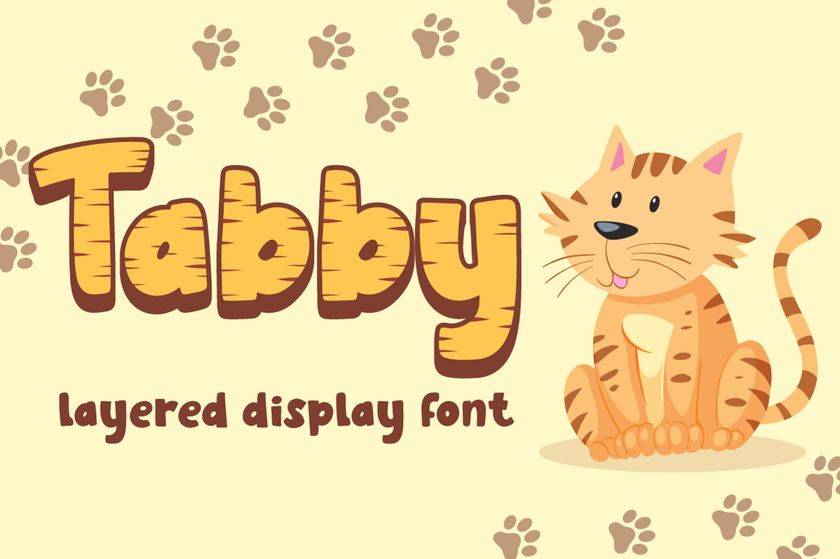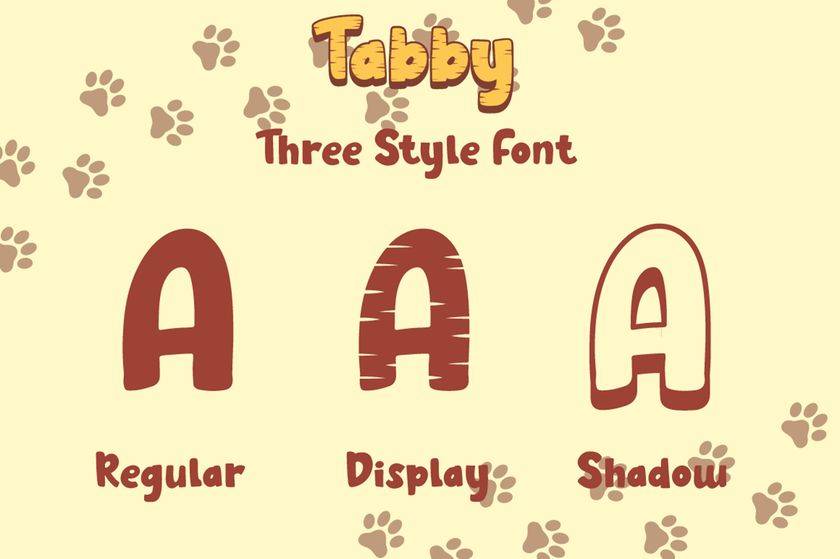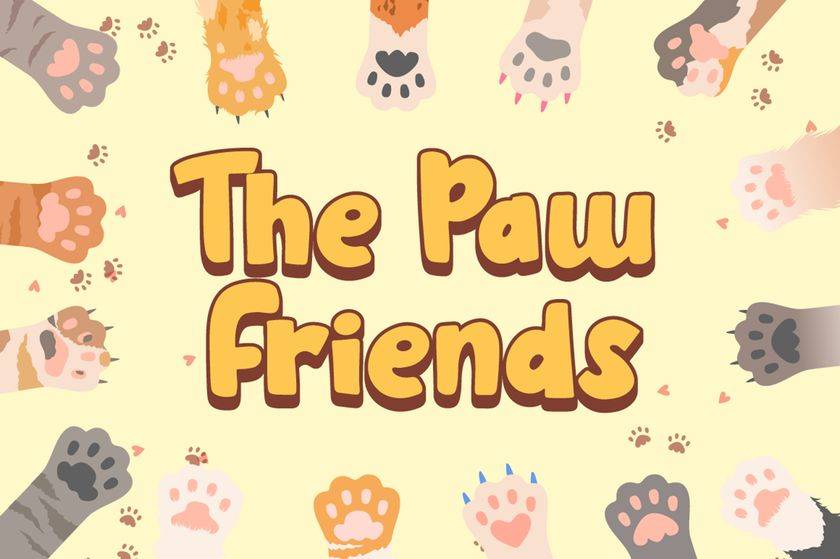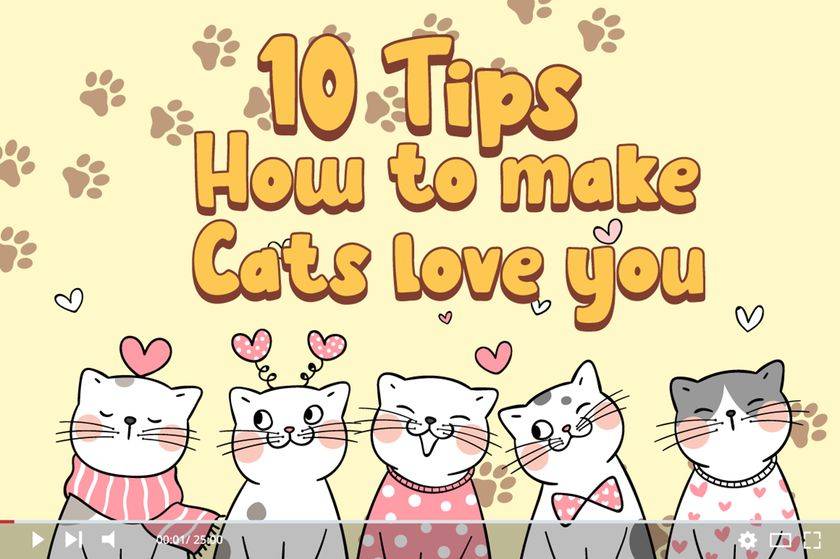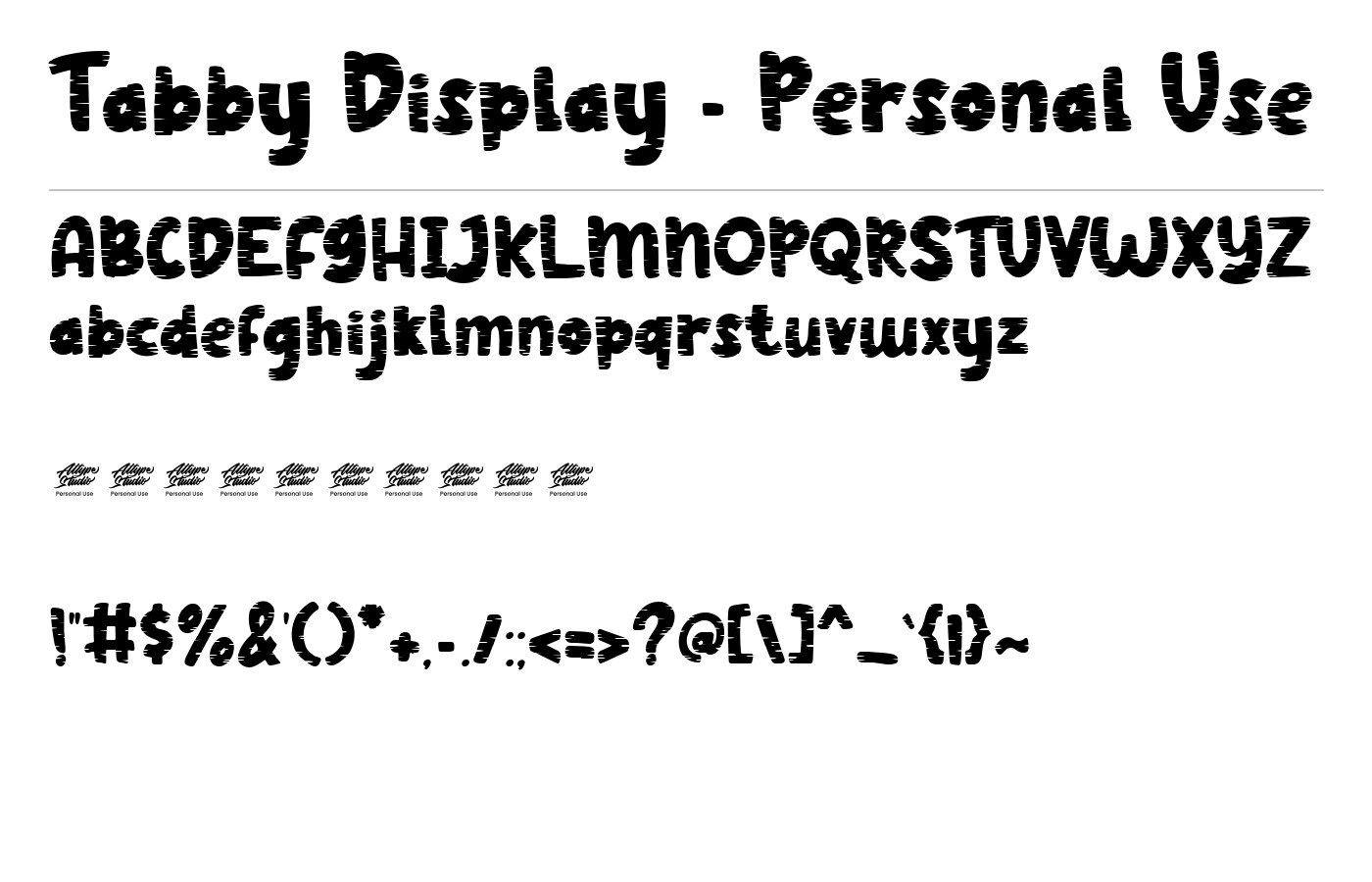
Tabby is a bold, playful display font characterized by its irregular, textured strokes that give it a hand-crafted, whimsical feel. With its chunky letterforms and rough edges, it’s perfect for fun, casual designs such as posters, children’s materials, and creative branding where a lively, informal tone is desired. Its distinctive style makes it stand out in headlines and logos, adding a unique, energetic personality to any project.
Tabby Font